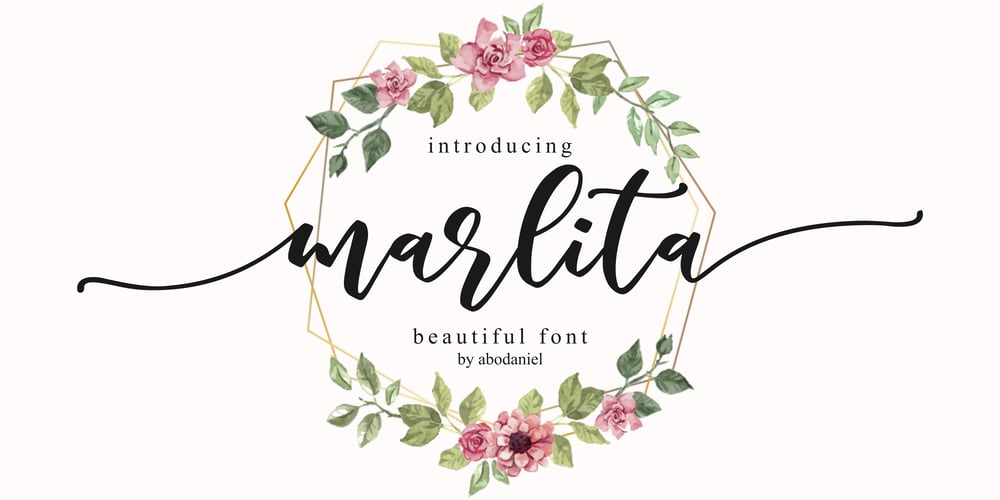
Marlita
Marlita font
Marlita Font Family was designed by Abo Daniel and published by Abo Daniel. Marlita contains 1 styles and family package options. Marlita is a carefully made script, great for quotes, branding, packaging, wedding card, advertising, and more. It comes with 10 variations of ampersands as well as various titling and ending swashes.